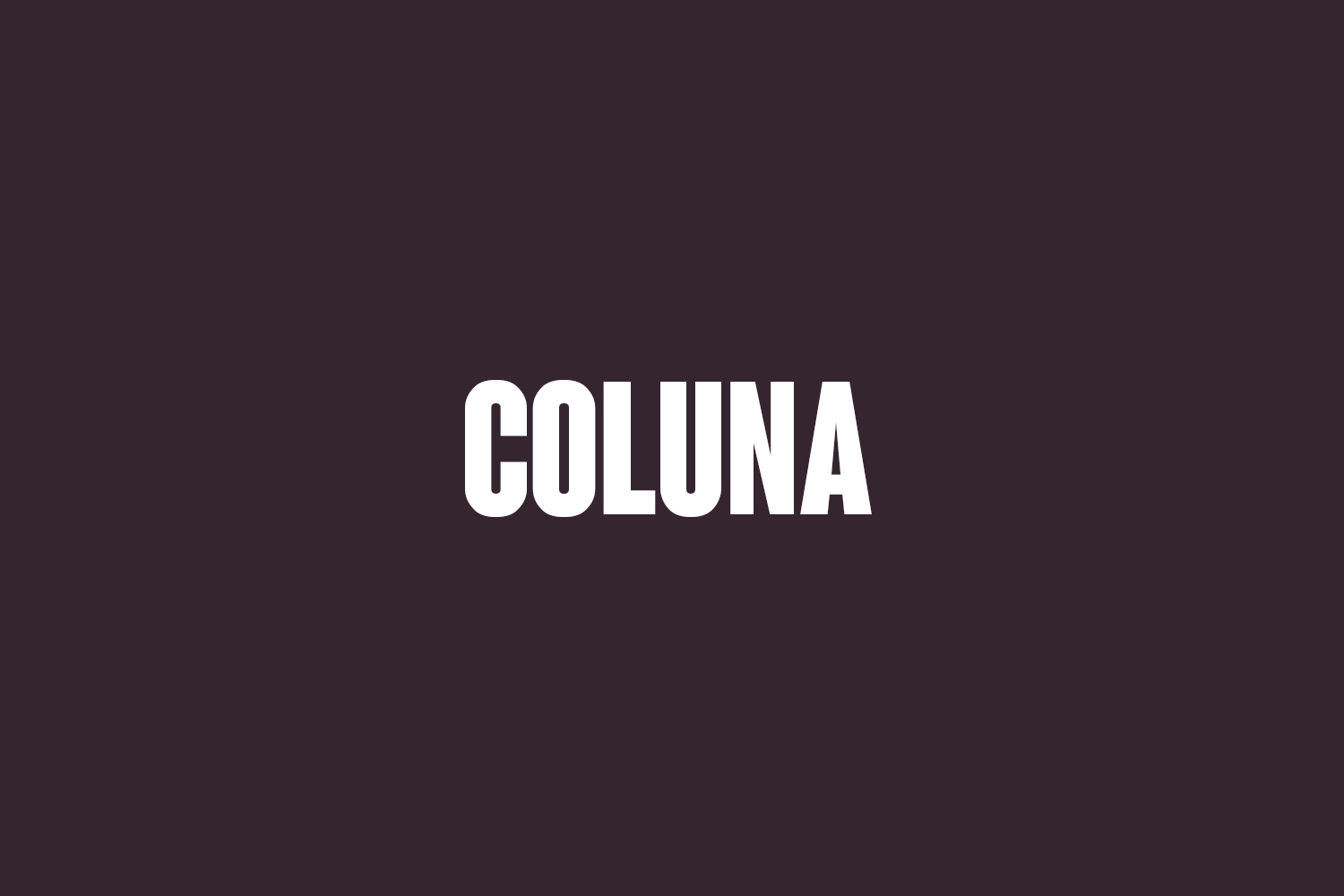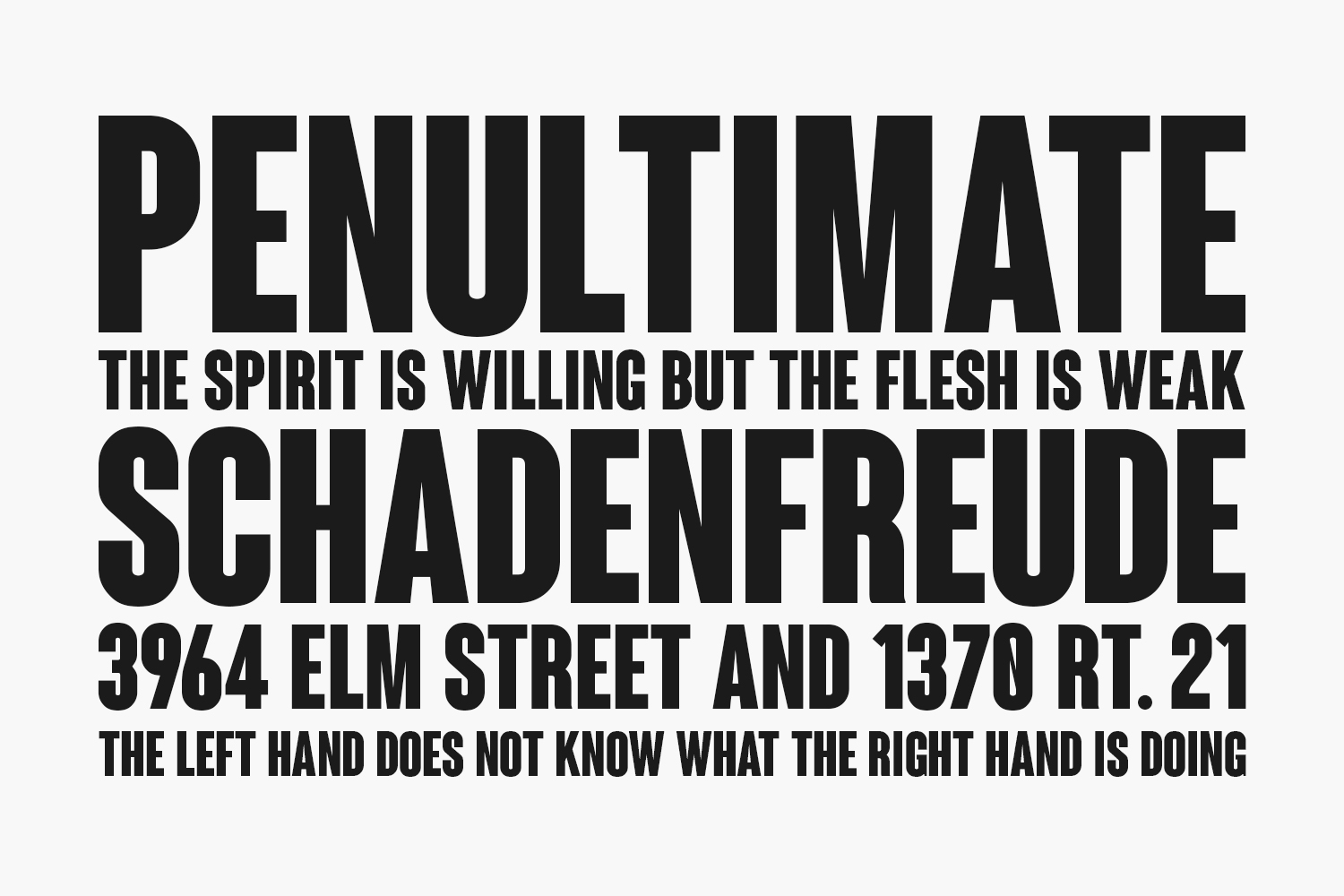
Coluna Free Font Family is a visually powerful, bold, condensed, sans-serif. This font has been designed for headlines, titles, statements, and commercials. The name is a tribute to Mário Coluna, a historical footballer, central midfielder of Benfica Lisbon. Please purchase the full version for commercial use.
Coluna Rounded Bold The quick brown fox jumps over the lazy dog
Coluna Rounded Condensed Bold The quick brown fox jumps over the lazy dog